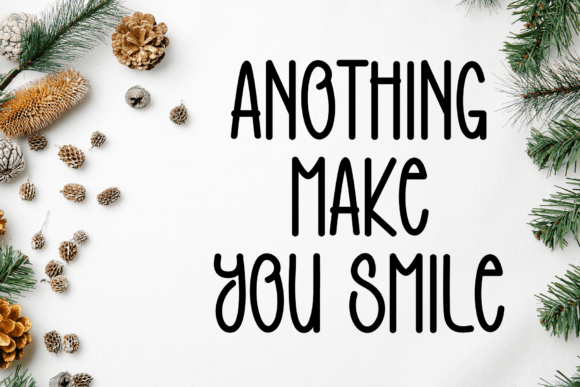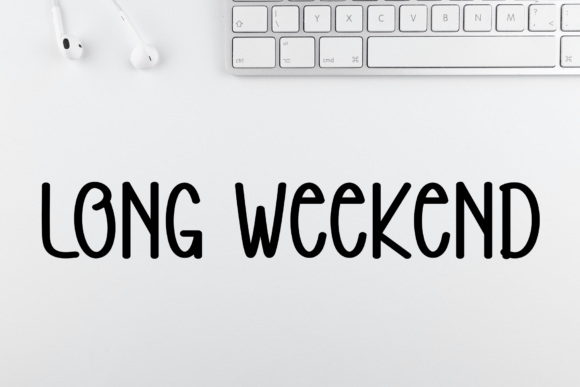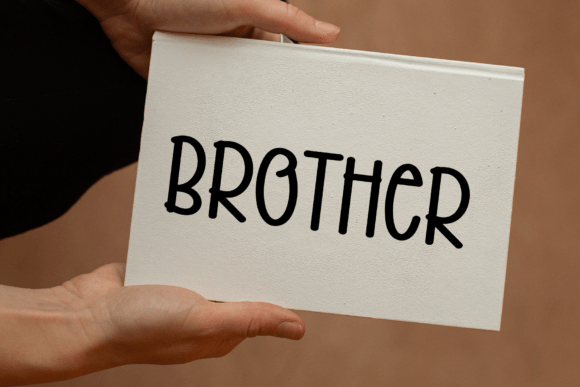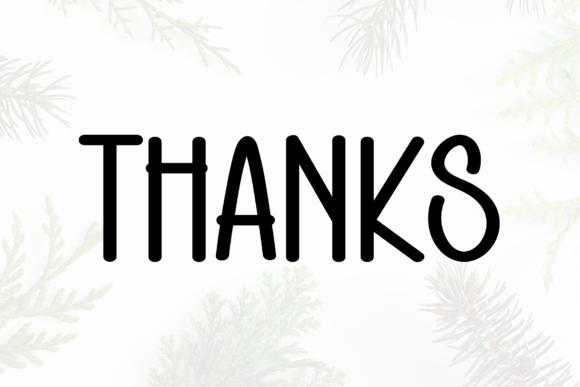
Introduction to Mellow Waiting Font
Have you ever found yourself staring at a blank page, struggling to bring your creative vision to life? That’s a familiar feeling for many designers, but it doesn’t have to be a barrier to producing high-quality work. The right design resource can make all the difference, and today we’re excited to introduce you to the Mellow Waiting Font – a sweet and beautiful handwritten font that’s sure to add a cozy accent to any design project.
This lovely font features characters that dance along the baseline, giving it a playful and whimsical feel that’s perfect for creative projects. Whether you’re working on a personal project or a client assignment, the Mellow Waiting Font is a valuable addition to your design toolkit.
Key Features of Mellow Waiting Font
- High-Quality Design: The Mellow Waiting Font is a premium design resource, ideal for creative projects requiring a sophisticated and elegant look.
- Unique Characteristics: The Mellow Waiting Font features a unique blend of modern and vintage elements, making it an excellent choice for designers seeking a distinctive look.
Honest Review: Mellow Waiting Font
As a designer, I’m always on the lookout for high-quality fonts that can elevate my creative projects. Recently, I had the chance to try out the Mellow Waiting Font, and here’s my honest review.
- Unique Design: The Mellow Waiting Font has a distinctive, laid-back feel that’s perfect for creative projects that need a relaxed vibe.
- Limited Character Set: The Mellow Waiting Font has a relatively small character set, which may not be ideal for projects that require a wide range of characters.
- Lack of Bold Weights: I found that the font’s bold weights were a bit lacking, which made it harder to achieve the desired level of emphasis in some designs.
Overall, I think the Mellow Waiting Font is a solid design resource, but it may not be suitable for every project. If you’re looking for a unique, laid-back font for a creative project, this might be worth checking out. However, if you need a font with a wider character set or more bold weights, you may want to consider other options.
Tips for Getting the Most Out of Mellow Waiting Font
For the best results, use the Mellow Waiting Font in conjunction with a high-quality image or design element. Experiment with different font sizes and colors to create a visually appealing design. Consider using the font in a creative project, such as a brochure or social media graphic.
The Mellow Waiting Font is ideal for use in a variety of creative projects, including brochures, social media graphics, and website headers. Its high-quality design and transparent background make it a versatile and effective design resource.
Alternatives to Mellow Waiting Font
Pacifico is a beautiful, elegant script font perfect for creating a high-quality, creative project. Its cursive style makes it ideal for wedding invitations, quotes, and other design elements that require a touch of sophistication. When to use: wedding invitations, quotes, and elegant typography. How it compares to Mellow Waiting Font: Pacifico has a more refined and elegant feel, while Mellow Waiting Font has a more relaxed and casual tone.